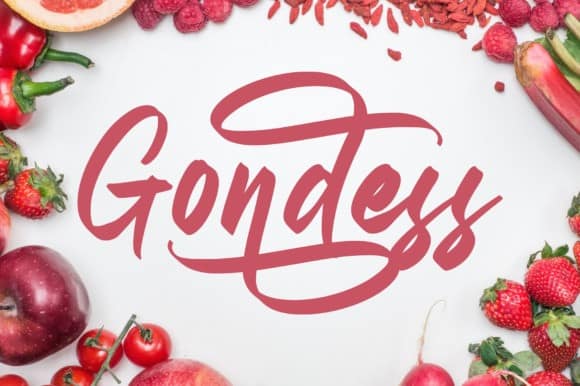
Gondess Calligraphy Font
Introduction to The Gondess is a premium brush script from CreativeFabrica. This modern font has a calligraphy aesthetic that is extremely popular. The Gondess was created to give designers a relevant alternative which will help them achieve that lettering feels the designers all love.
Gondess Font is a new calligraphy typeface from Omotu. Gondess font is an elegant script typeface, carefully handcrafted to become a true design tool.
Gondess Calligraphy Font is a stylish and original multi-functional font. And this font fits perfectly for both vintage and modern design. The pro designers can create templates, beautiful logos, signs, labels, highlight text, and also use this font for branding, outdoor advertising, etc.